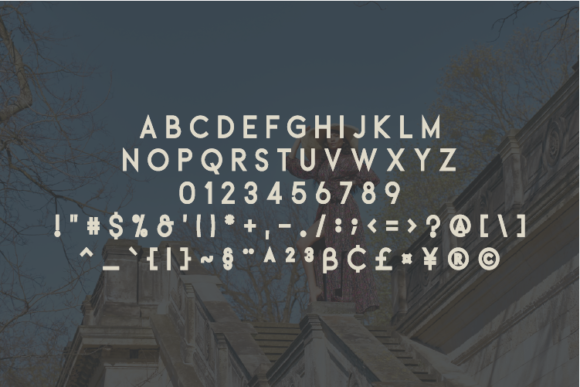
The Elyphoa Font: A Designer’s New Best Friend
I’ll never forget the time I was working on a branding project for a trendy new coffee shop. My client was specific about wanting a modern, sleek look that would appeal to the young and hip. I spent hours scouring font libraries, but nothing seemed quite right. That was until I stumbled upon the Elyphoa font. **It was love at first sight!** ✨
Elyphoa is a powerful sans serif font that has become a staple in my design toolkit. Its unique blend of taper line balance and smooth curves makes it perfect for a wide range of applications, from logos and branding to packaging design and more.
- ✨ Versatility: Elyphoa is incredibly versatile and can be used in a variety of contexts, from digital to print.
- ✅ Ease of use: The font is easy to read and works well in both large and small sizes.
- 💡 Unique style: Elyphoa’s modern design and smooth curves make it stand out from more traditional sans serif fonts.
While Elyphoa is an excellent font, it’s not without its quirks. For example:
- 🤔 Limited language support: Elyphoa currently supports a limited number of languages, so it’s essential to check compatibility before use.
- ⚠️ Overuse of stylistic alternates: While Elyphoa’s stylistic alternates are a great feature, overusing them can make the text look cluttered and difficult to read.
- Take advantage of OpenType features, such as glyphs and stylistic alternates, to add visual interest to your design.
The Story Behind Elyphoa
Elyphoa was designed by a team of typographers who wanted to create a modern, versatile font that would meet the needs of contemporary designers. Inspired by the clean lines and curves of urban landscapes, Elyphoa is the result of careful craftsmanship and attention to detail.
Q: What is the Elyphoa font?
A: Elyphoa is a powerful sans serif font featuring taper line balance and smooth curves, perfect for logos, branding, packaging design, and more.
Q: What languages does Elyphoa support?
A: Elyphoa currently supports a limited number of languages. Please check compatibility before use.